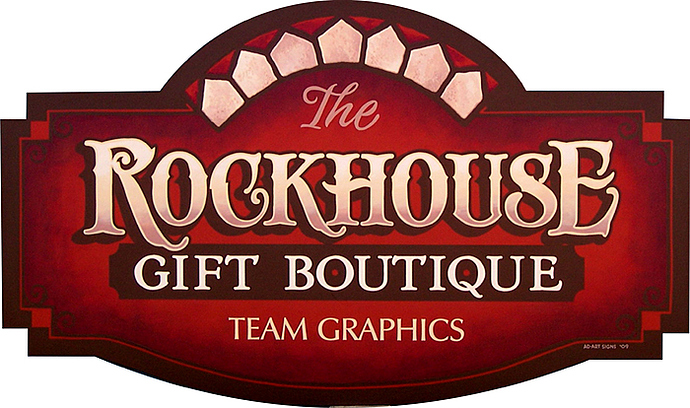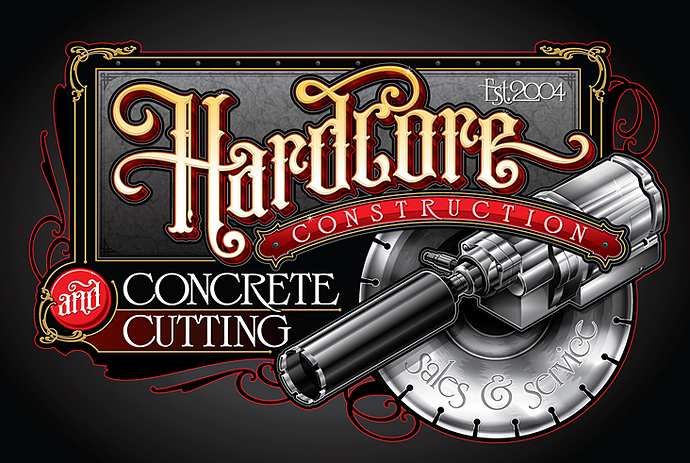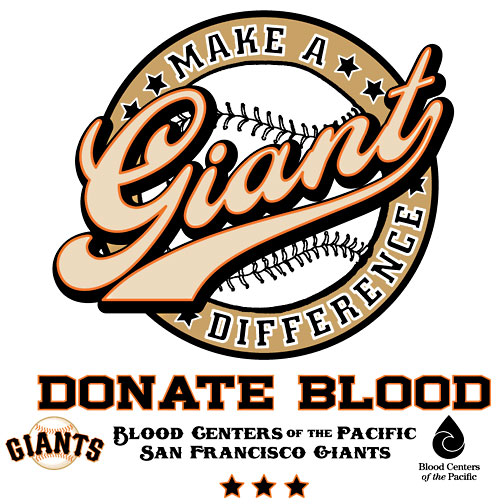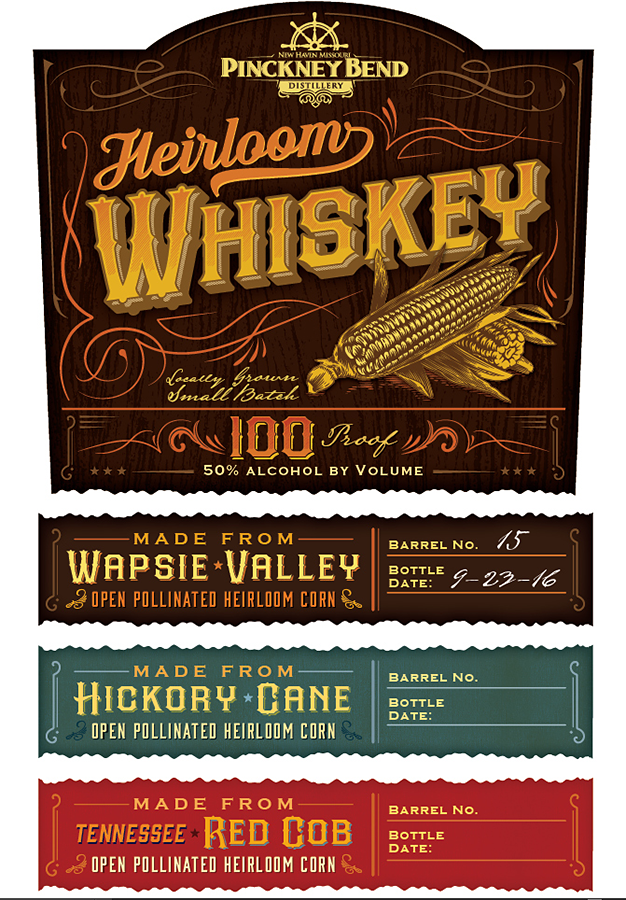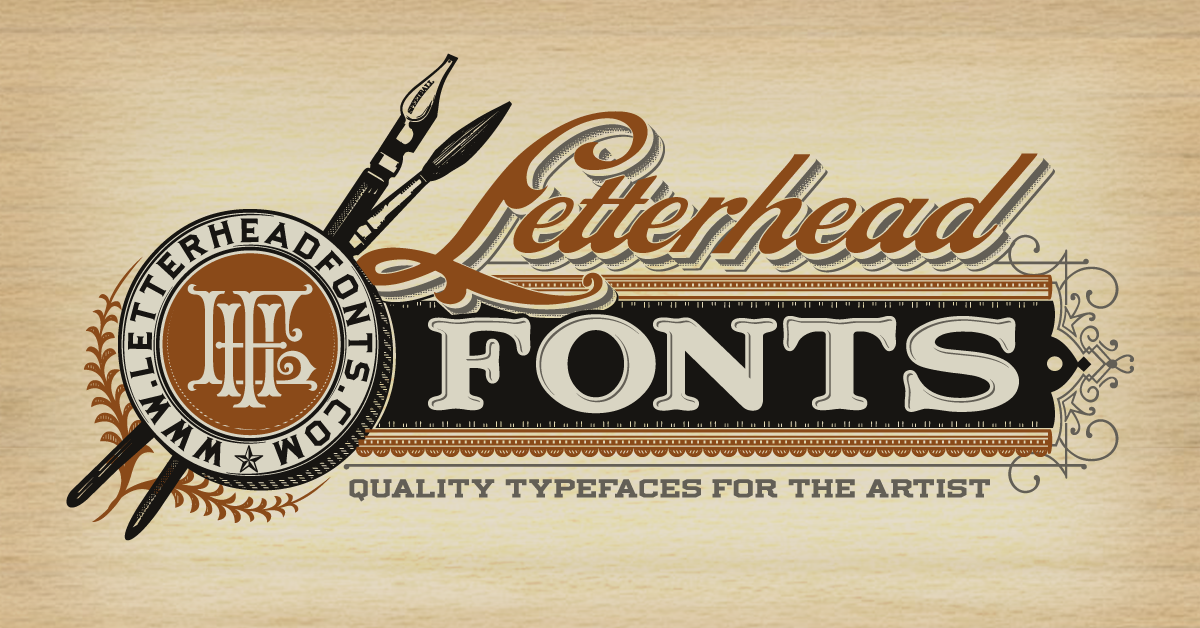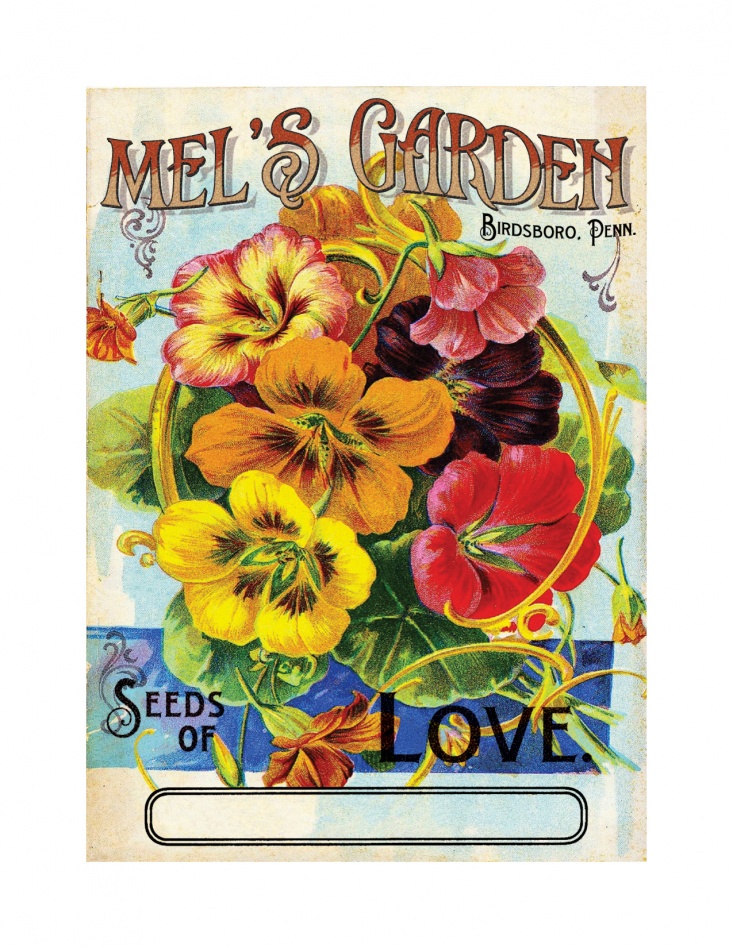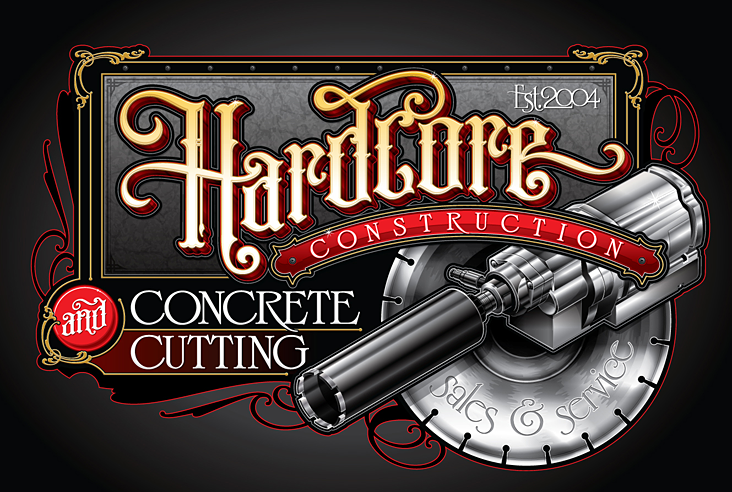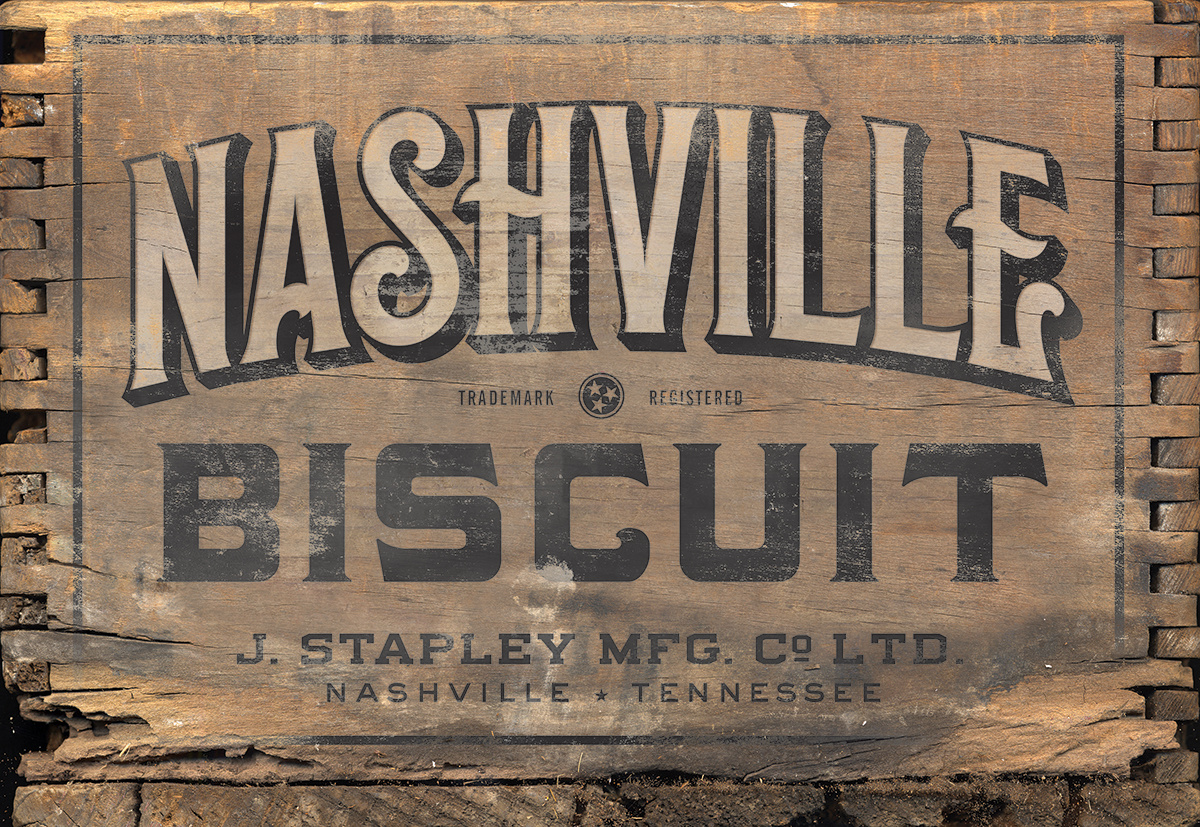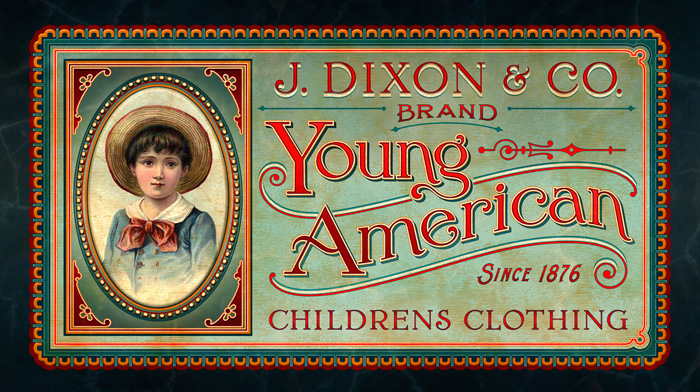
This is still and will always be my favorite site for inspiration and to drool over delicious fonts ![]()
A few examples of their users submissions … they are just divine! The Gallery is amazing if you ever want to get lost for a while ![]()
I’ve always been intrigued by the Letterhead Fonts’ website too. In many instances, it’s not the typefaces themselves as much as it is how they’ve been used on the site. It’s a bit like stepping back to a modernized, digital version of the 1880s.
I love Letterhead Fonts. I’ve bought from them quite a bit. You also get a gift when you buy and often that’s another font. My only complaint is that they’re mostly all caps. For the price, I’d like more lowercase options.
On the flip side of that though, their font “Desire” has over 900 characters. One of my favorites is Heller’s, both the casual and the script. It has a lowercase and is just a beautiful, well-crafted font.